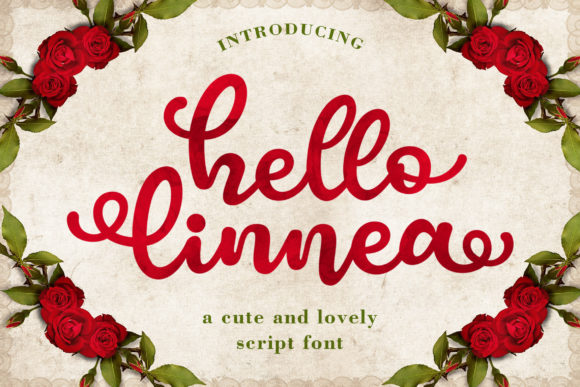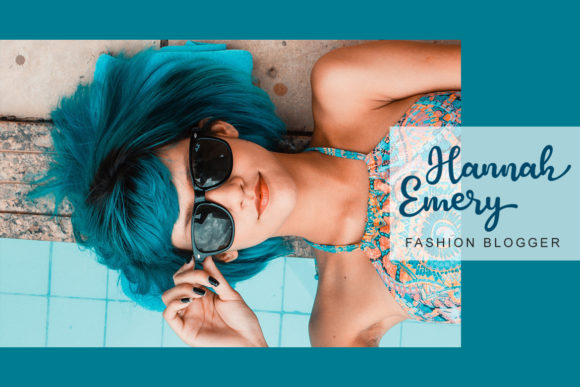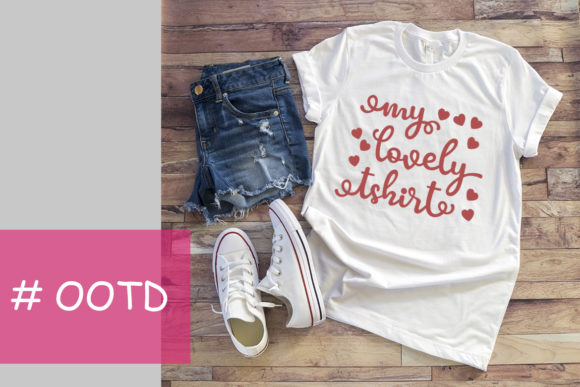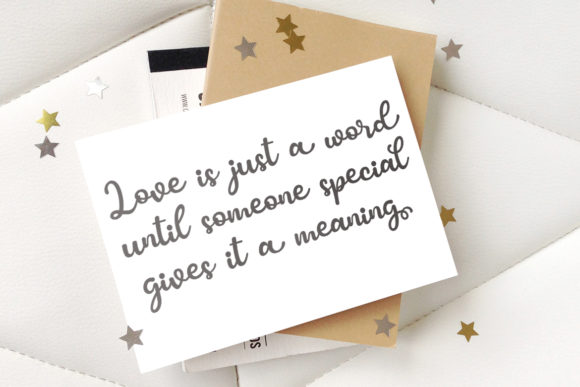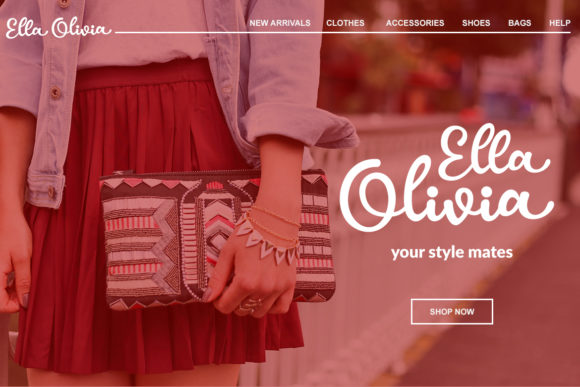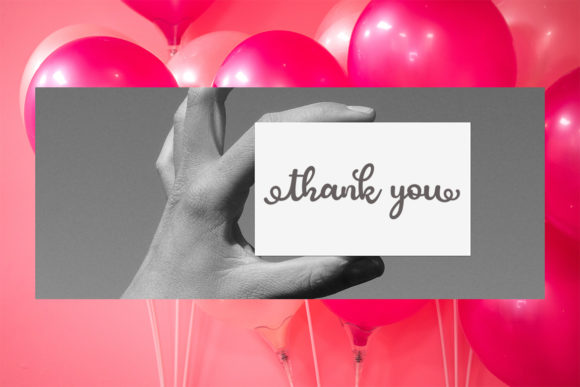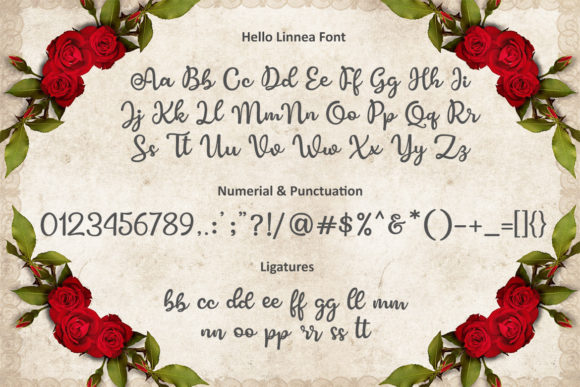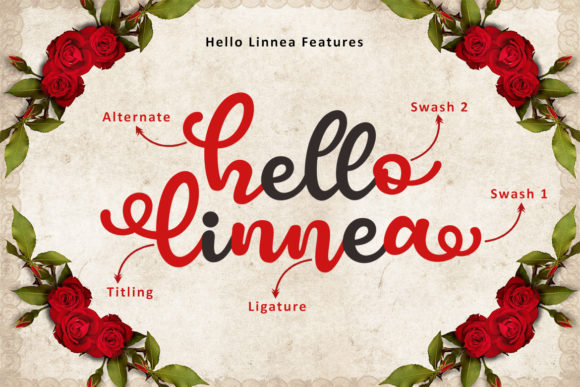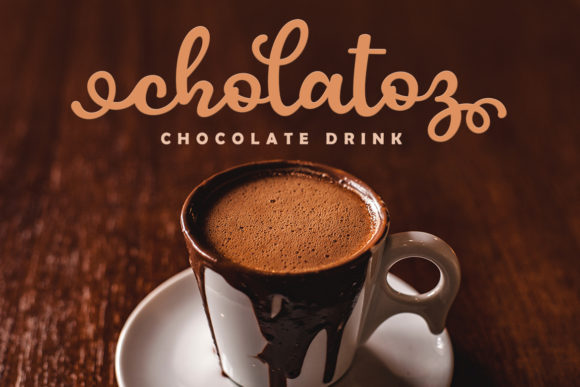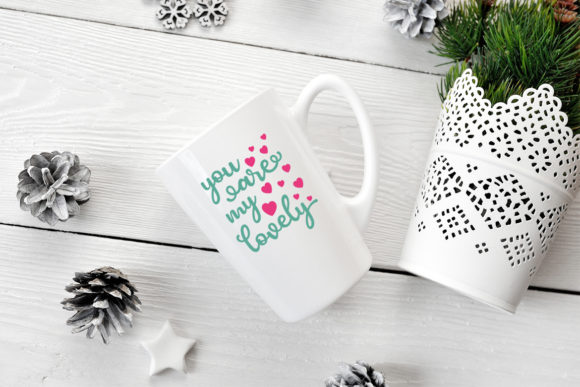
Hello Linnea Font
About Hello Linnea Font
The Hello Linnea is a fun and lovely script font. It has a great readability and will add a fun and playful touch to any design.
It’s great for branding, logo designs, lettering, logotype, clothing, posters, magazines, and much more!